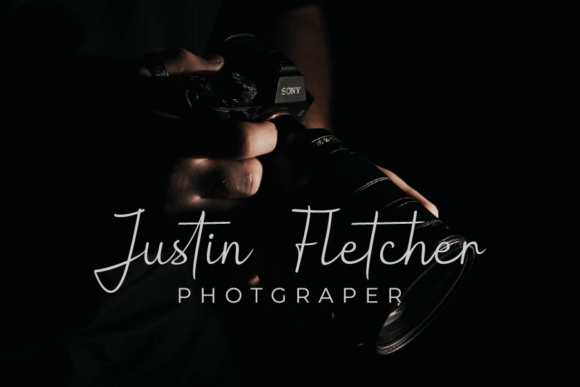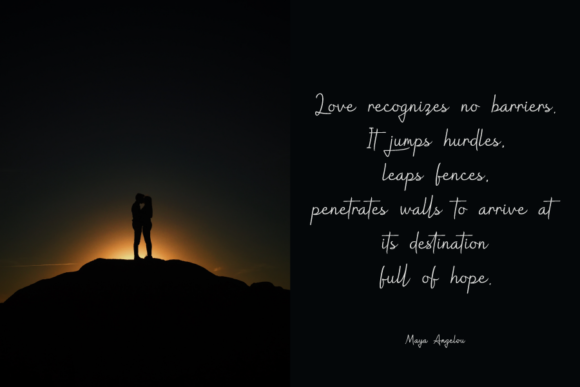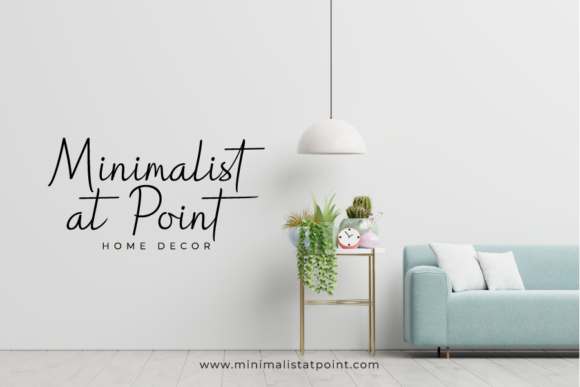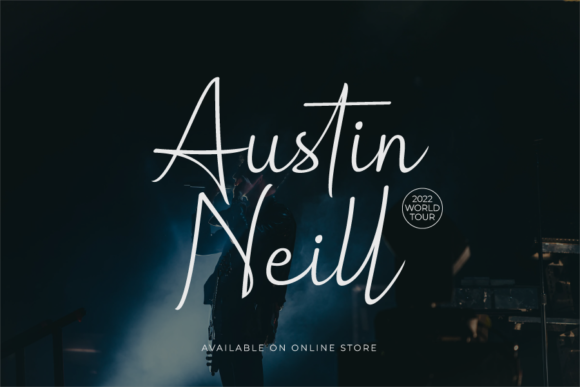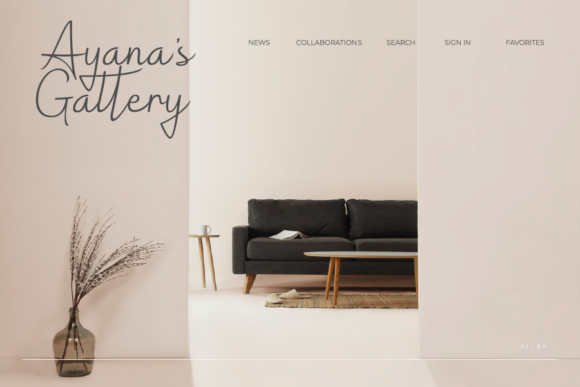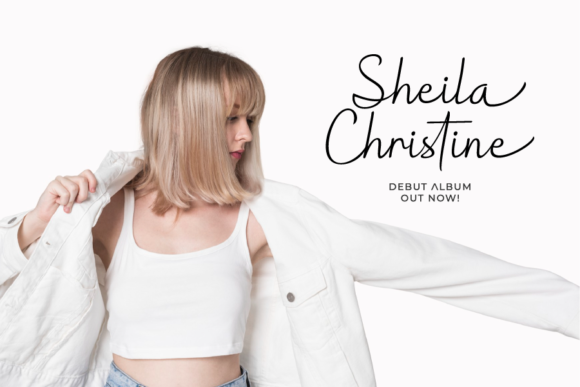
Hollograph Signature Font
About Hollograph Signature Font
Hollograph Signature is a delicate, slim and beautiful script font. This font is PUA encoded which means you can access all of the glyphs and swashes with ease!